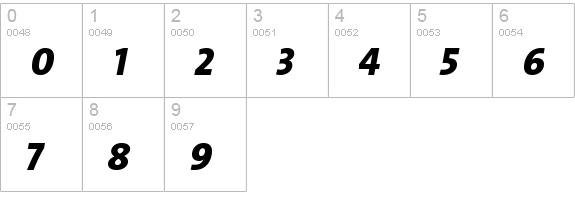
TheSans ExtraBold Caps Italic Font Details
TheSans ExtraBold Caps Italic is an extra-heavy, attention-grabbing, italic variant in the TheSans typeface family \xE2\x80\x94 well suited to high-impact headlines, posters, and bold branding.
TheSans ExtraBold Caps Italic is a visually striking and commanding font that exudes power and confidence. With its bold and italicized appearance, this font commands attention and makes a bold statement in any design. The sleek and modern design of TheSans ExtraBold Caps Italic is perfect for conveying a sense of strength and authority. Its clean lines and sharp angles give it a contemporary edge, making it ideal for use in headline text, logos, and branding materials. This font is not only visually captivating, but it is also incredibly versatile. It can be used in a variety of design projects, from marketing materials and advertisements to website headers and product packaging. Its bold and italicized nature adds a touch of drama and emphasis to any message, ensuring that it leaves a lasting impression on the audience. What makes TheSans ExtraBold Caps Italic even more appealing is that it is available for free download at FontsMarket.com. This means that designers, creatives, and typographers can easily access this font and incorporate it into their projects without any financial constraints. Whether you are looking to add a touch of boldness to your design or make a statement that cannot be ignored, TheSans ExtraBold Caps Italic is the perfect choice. With its powerful presence and freely accessible nature, this font is sure to make a lasting impact on any design endeavor.